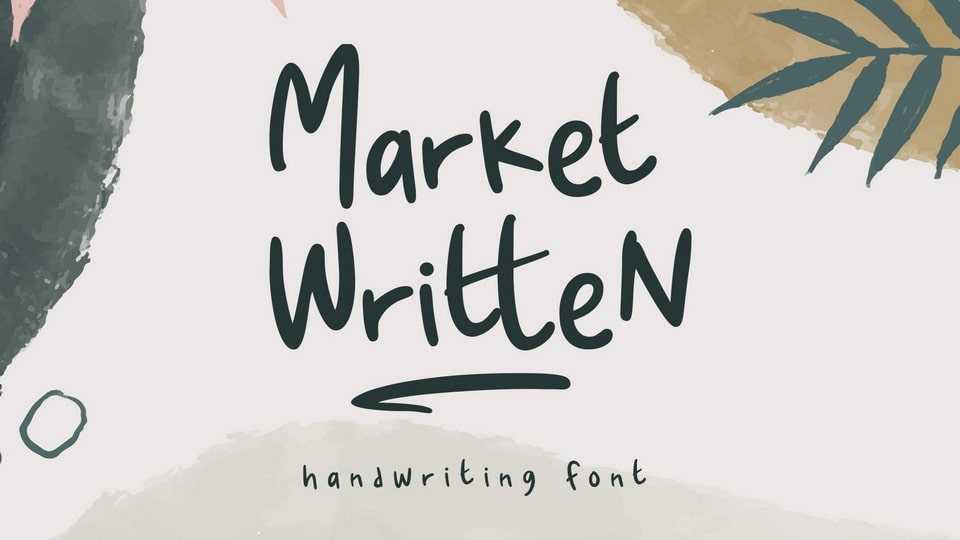
Download Market Written font, a handwriting typeface, created by the natural handwriting and casual-minimalist design. Crafted with the natural looks of the letterform and dynamic strokes, Market Written font has a bouncy feel that makes it looks more playfully.